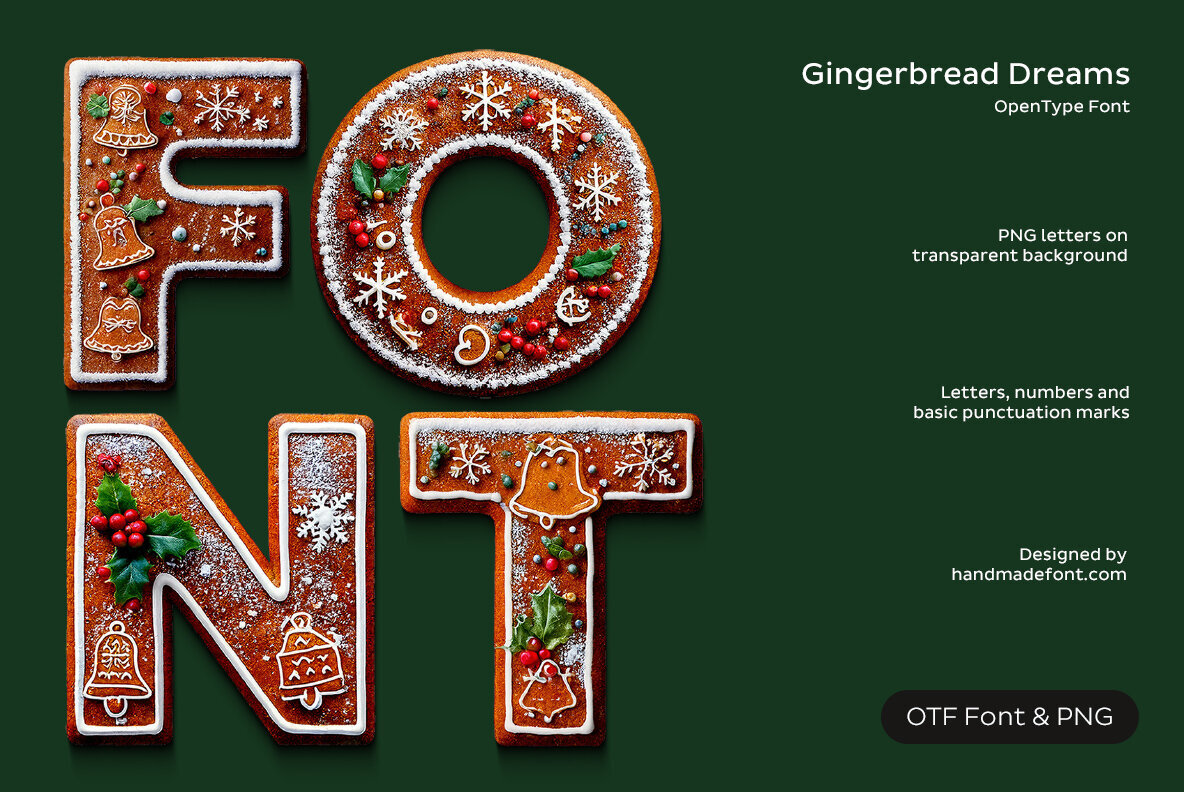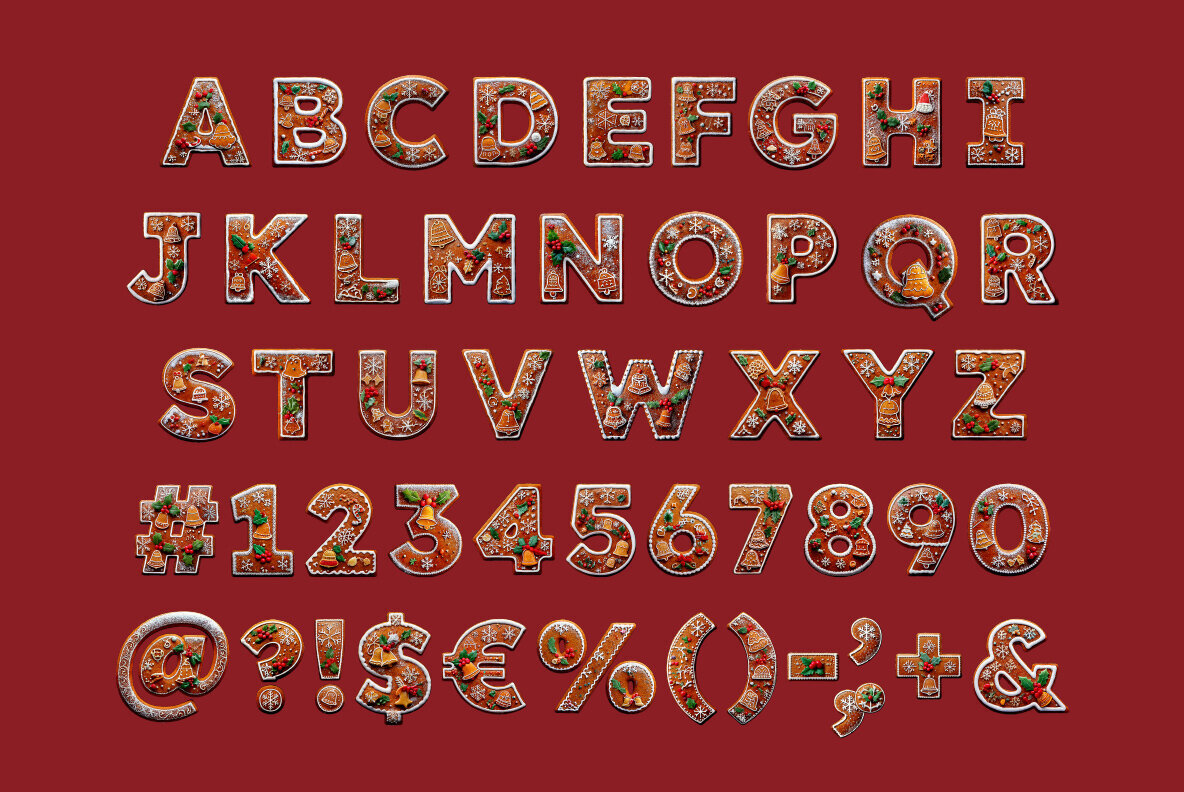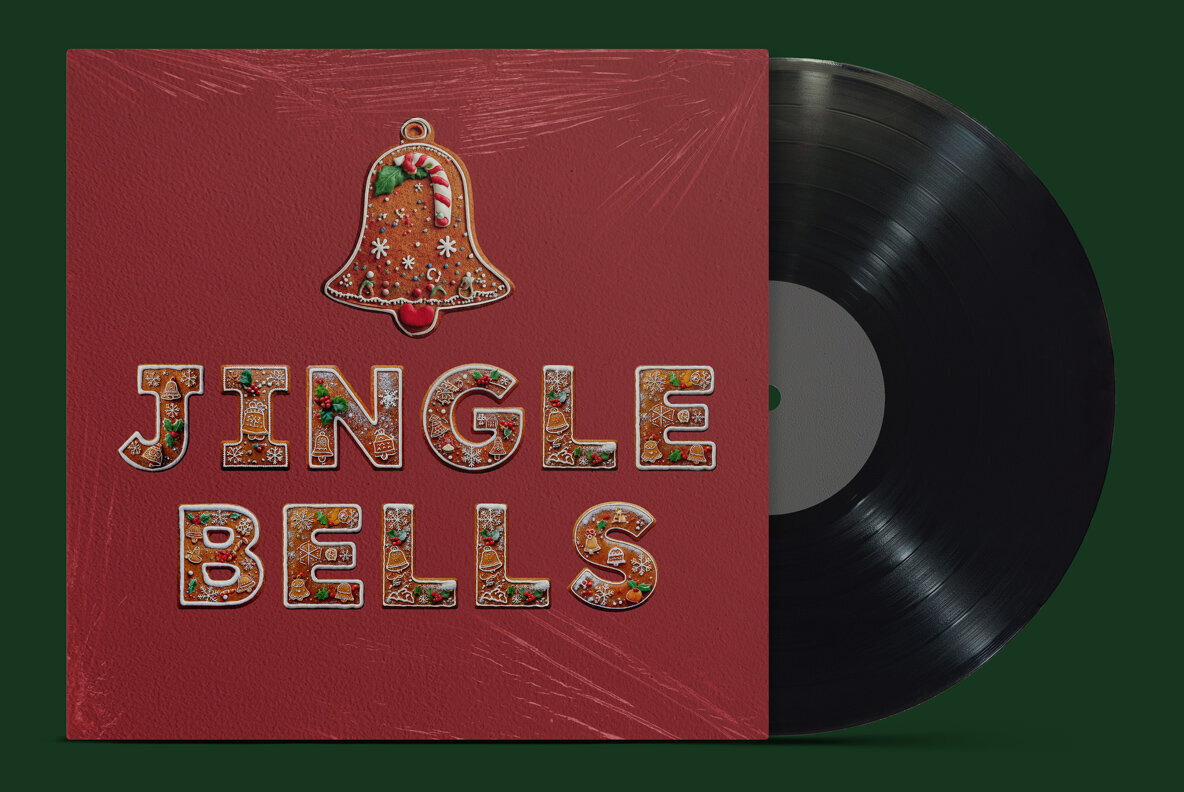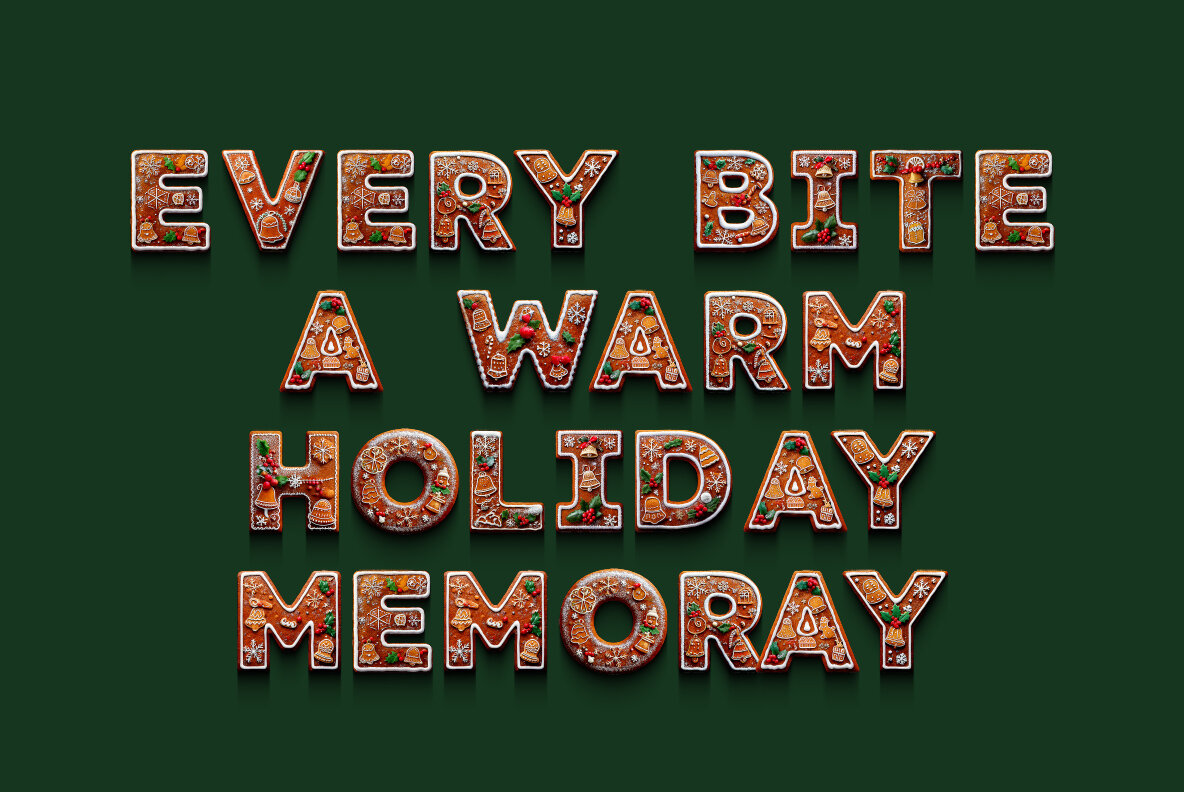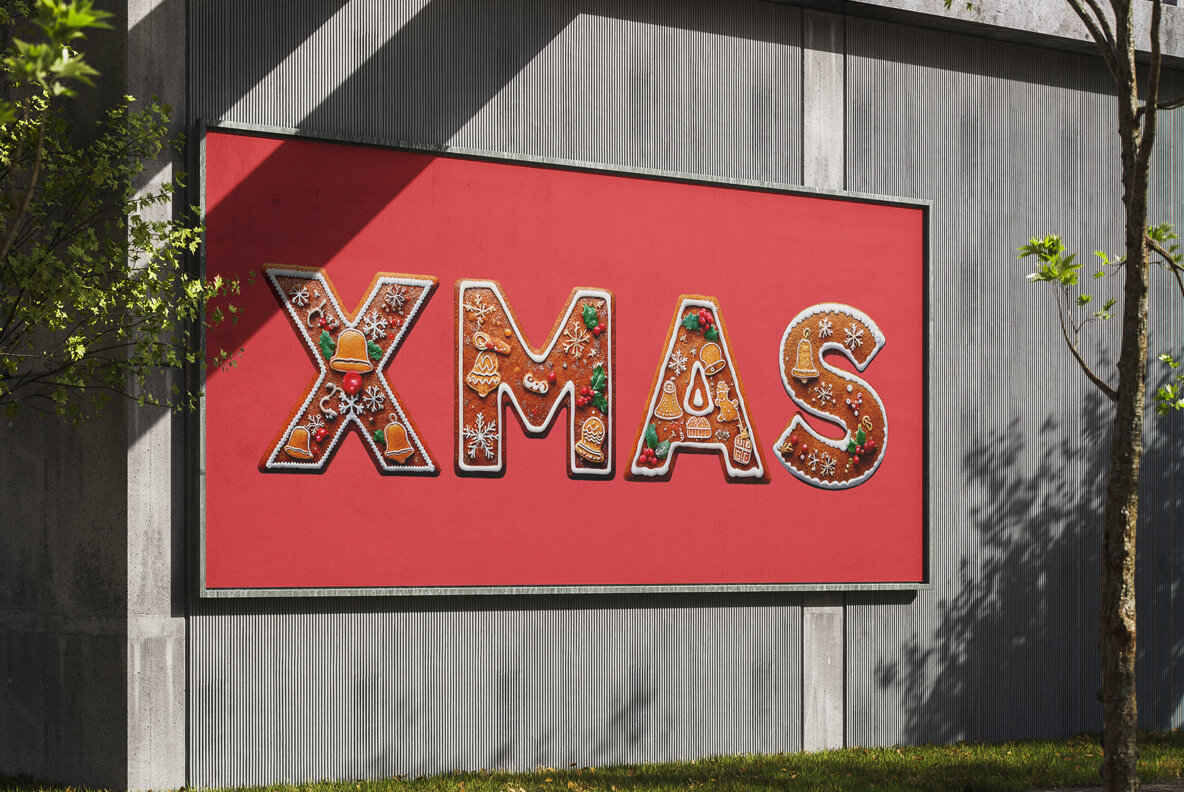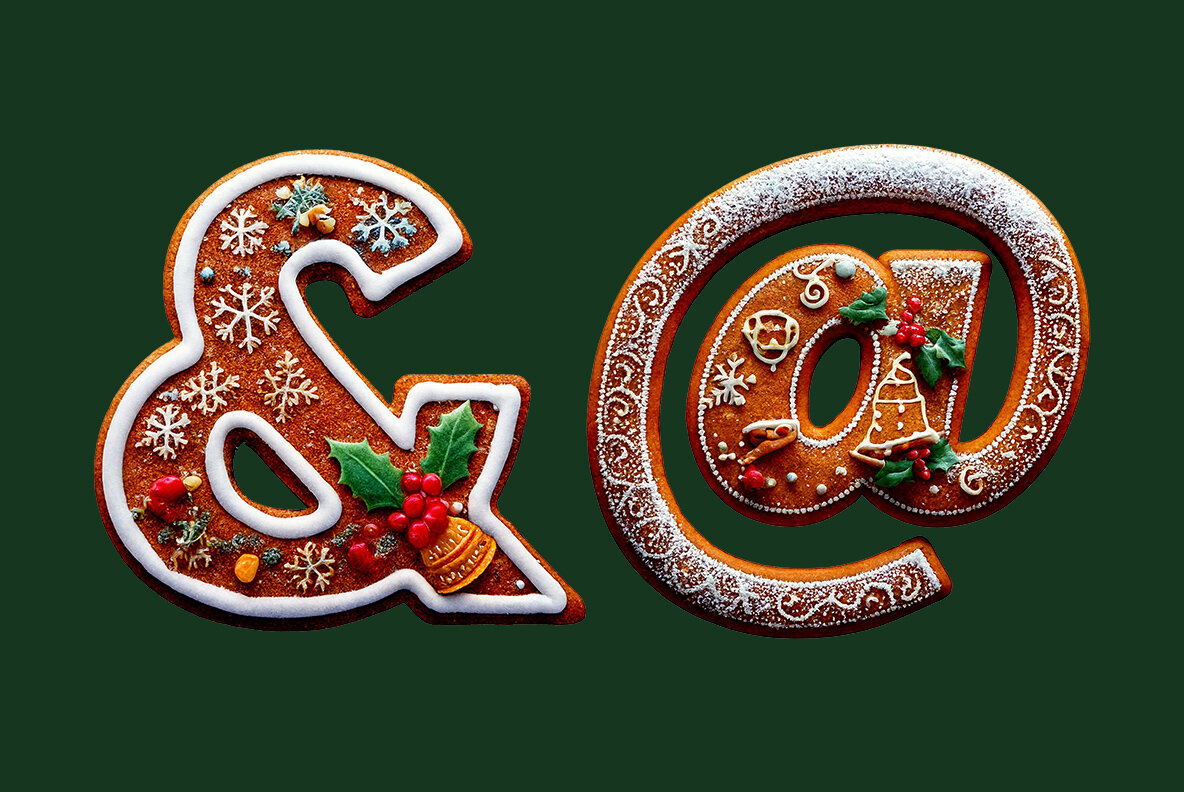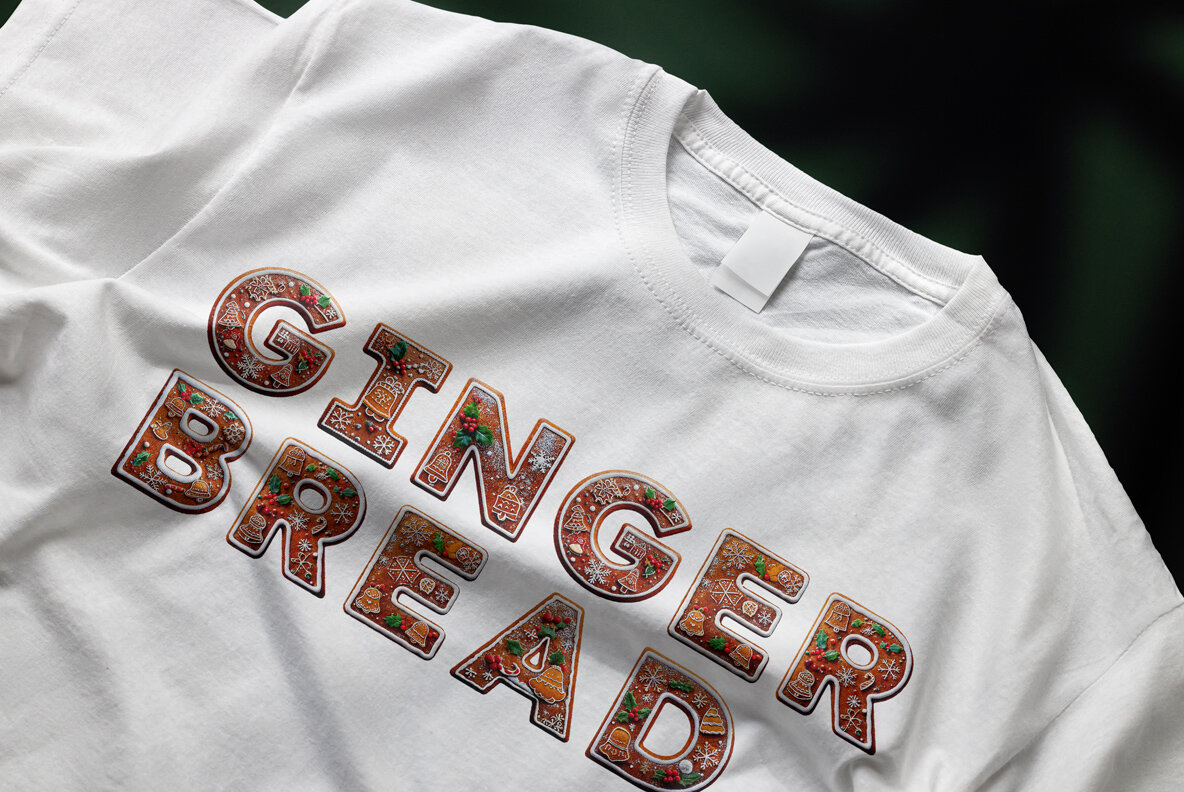
The Gingerbread Dreams Font is a delightful, festive typeface reminiscent of homemade holiday treats. Each letter is creatively crafted to resemble gingerbread cookies, intricately decorated with icing, candy pearls, snowflakes, holly leaves, and bells. This font embodies the warmth and nostalgic charm of the holidays, making it ideal for Christmas cards, bakery packaging, party invitations, or any design requiring a touch of magic and sweetness. Designed for a cozy and cheerful aesthetic, Gingerbread Dreams adds a playful sense of celebration to your typography. With its detailed characters available in high definition, this color OpenType font is compatible with most leading digital design software including Photoshop, Illustrator, and InDesign. The package conveniently offers each letter as separate PNG files on transparent backgrounds, ensuring versatility across various applications.Gingerbread Dreams SVG Typeface